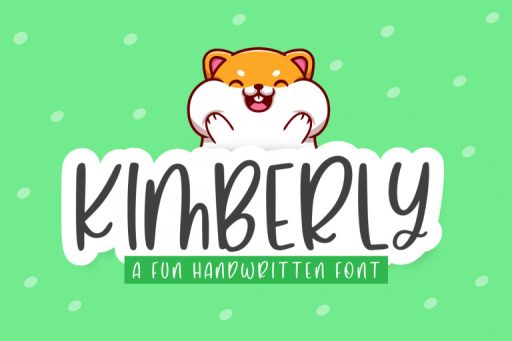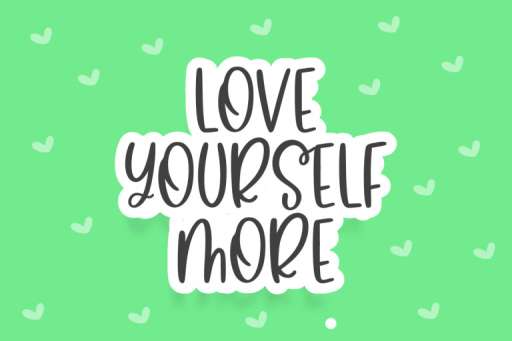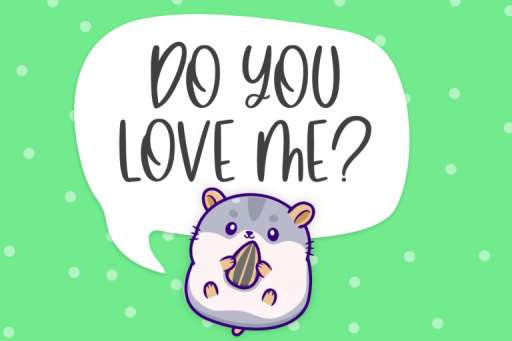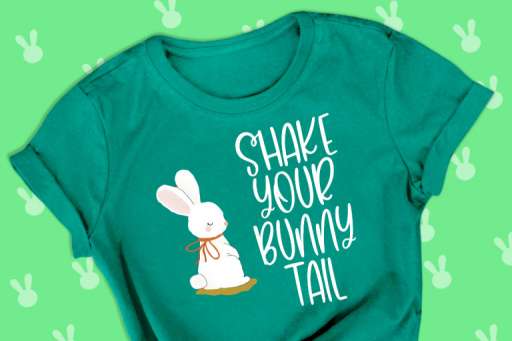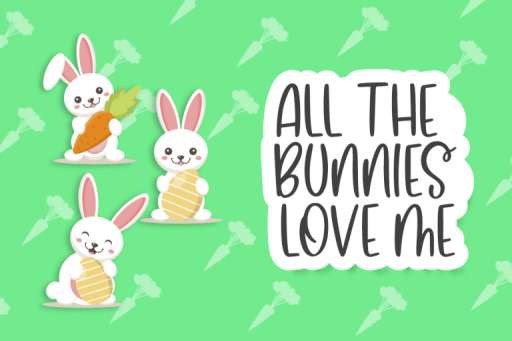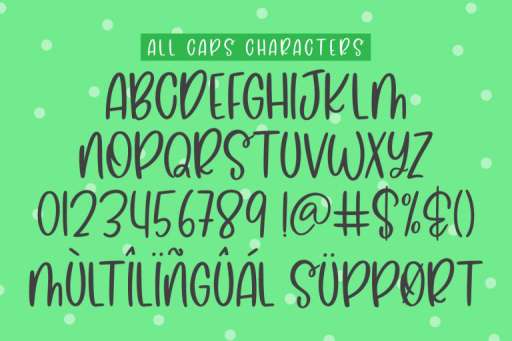
Kimberly Regular
Kimberly Font – Cute and Friendly
Kimberly is a fun handwritten font, has the top of the letter expanding and she is so cute for your design. Kimberly is perfect for SVG design, handmade design, cards, t-shirts, quotes, stationery design, mugs, children’s design and much more!
Kimberly Features :
• Multilingual